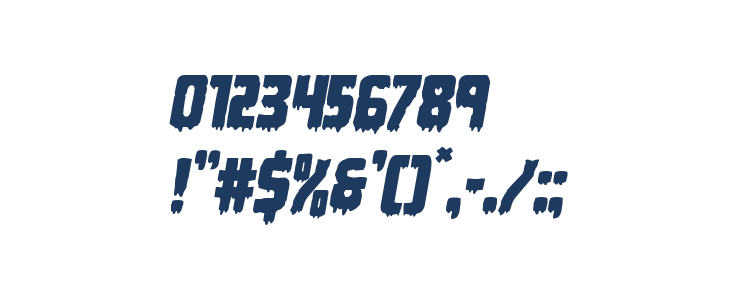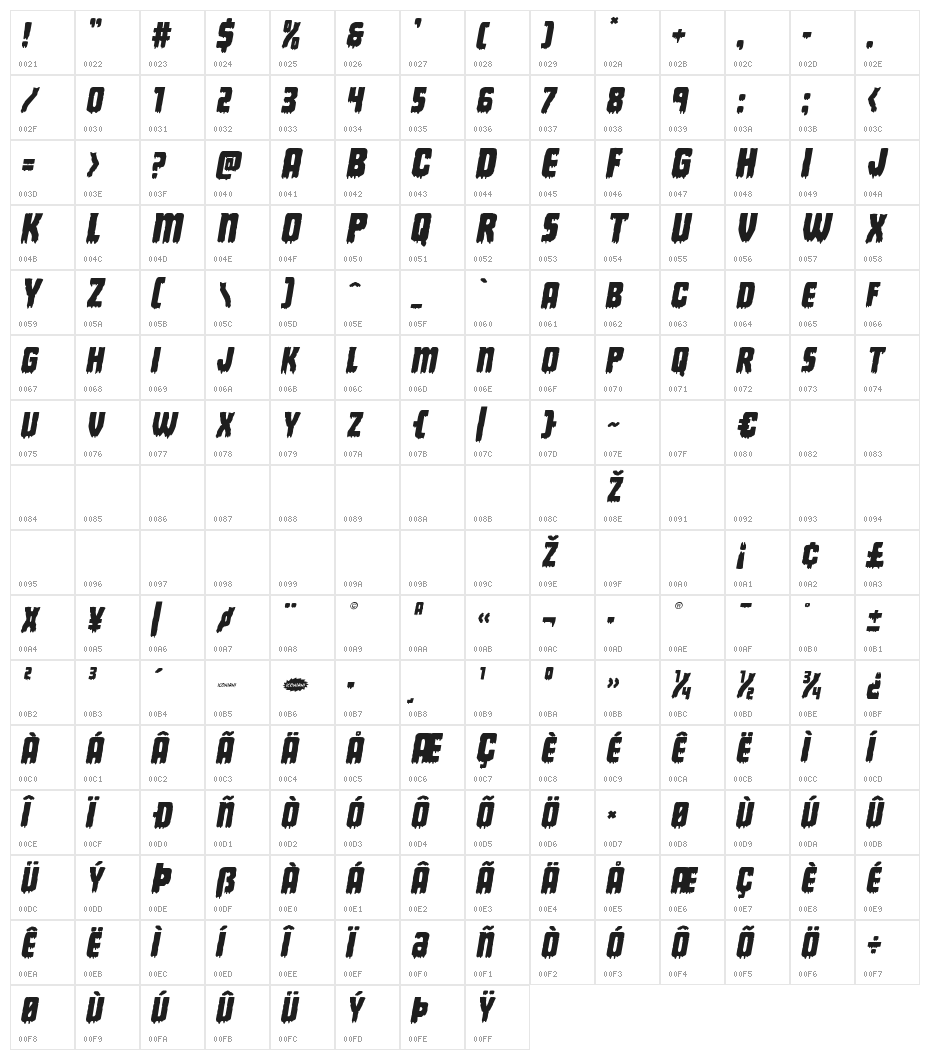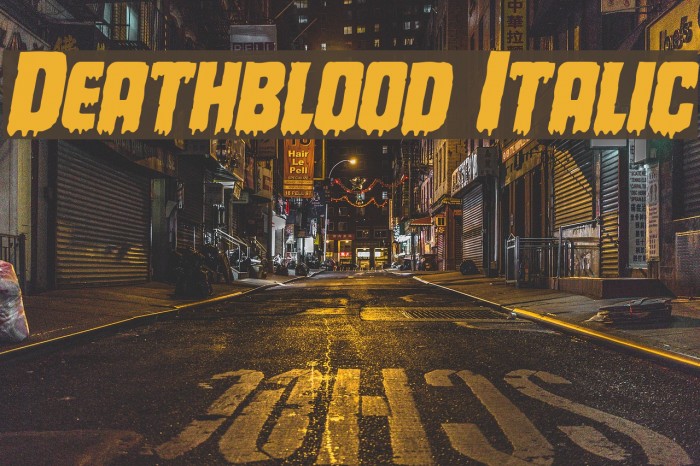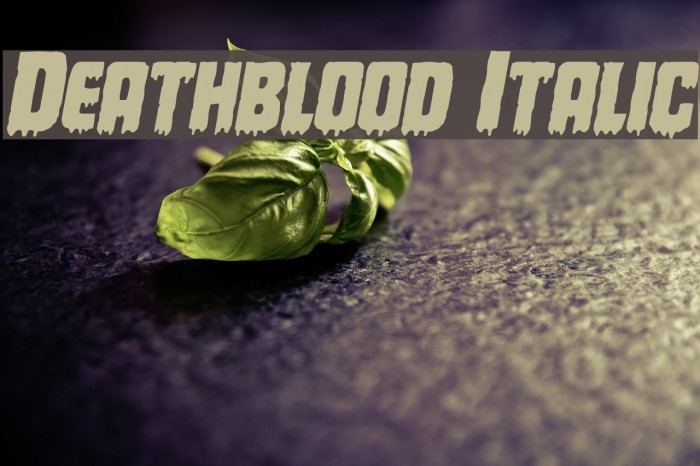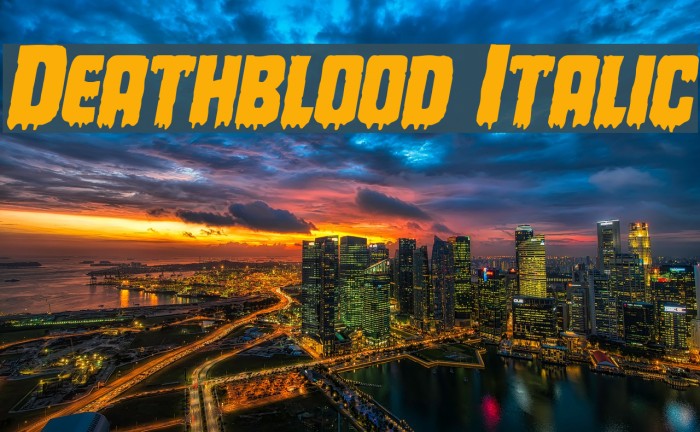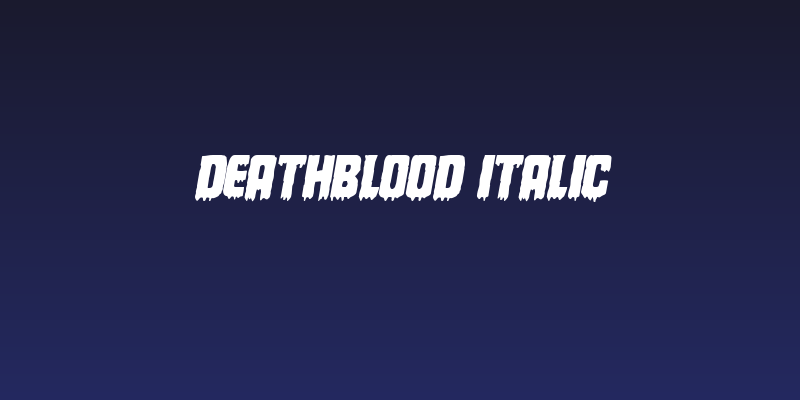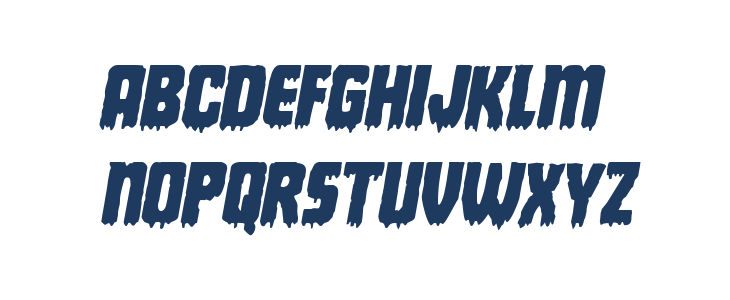
Deathblood Italic Font
Deathblood Italic Description
This font features a bold and aggressive style with a distinct italic slant, giving it a dynamic and energetic appearance. The characters are heavily stylized with sharp, angular edges and a slightly distressed texture, reminiscent of horror or thriller themes. The uppercase and lowercase letters maintain a consistent weight, contributing to a cohesive look. The numbers and special characters follow the same design principles, ensuring uniformity across all glyphs. This font's unique aesthetic makes it suitable for projects that require a dramatic and impactful visual presence.
| Proposed Projects | Ideal for horror movie posters, video game titles, Halloween event flyers, and edgy branding materials. |